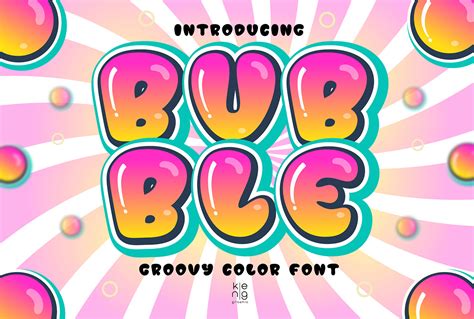
Psychedelic Bubble Font: Free Download Guide
Hey guys, looking to add some seriously groovy vibes to your next design project? Well, you’ve come to the right place! Today, we’re diving deep into the awesome world of psychedelic bubble fonts and, more importantly, how you can snag some free downloads to make your creations pop. These fonts are like a visual trip back to the swinging sixties and seventies, bringing that unmistakable retro flair with their rounded, flowing, and often mind-bending letterforms. Whether you’re designing a poster for a music festival, creating eye-catching social media graphics, or just want to give your personal projects a unique twist, a psychedelic bubble font is your secret weapon. Forget boring, straight-laced typography; it’s time to embrace the fun, the funky, and the fantastic! We’ll explore what makes these fonts so special, where to find the best free options, and what to look out for when downloading them. So, grab your tie-dye shirt, put on some good tunes, and let’s get ready to explore the vibrant universe of psychedelic bubble fonts!
Why Psychedelic Bubble Fonts Are Totally Rad
So, what’s the big deal with psychedelic bubble fonts anyway? Think about the era that birthed them – the 1960s and 70s. This was a time of artistic explosion, a rebellion against the norm, and a celebration of vibrant expression. Psychedelic art, music, and fashion were all about breaking boundaries, and typography was no exception. These fonts capture that spirit perfectly. Bubble letters , by their very nature, are soft, rounded, and inviting. When you infuse them with a psychedelic twist, they become something truly magical. They often feature thick, juicy strokes that look like they’ve been inflated with air, giving them a playful, almost cartoonish feel. But it’s not just about the roundness; psychedelic bubble fonts often incorporate elements like wavy lines, distorted shapes, and a sense of movement that makes the text feel alive. They’re incredibly versatile, too! While they scream retro, they can also be used in modern designs to create a nostalgic contrast or to simply inject a dose of pure fun. Imagine using a bold, bubbly font for a band’s album cover, a quirky invite to a party, or even a fun slogan on a t-shirt. The visual impact is immediate and unforgettable. They evoke feelings of joy, freedom, and a touch of playful rebellion. Unlike more rigid fonts, these have a flow and personality that draw the viewer in. They’re not just letters; they’re characters in your design, each with its own unique story to tell. The organic shapes and often asymmetrical designs contribute to their unique charm, making each word a miniature work of art. They represent a departure from the structured and the mundane, offering a gateway to a more expressive and visually engaging form of communication. In essence, psychedelic bubble fonts are a potent tool for anyone looking to make a statement and leave a lasting impression with their designs.
Tips for Using Psychedelic Bubble Fonts Effectively
Alright, you’ve got your psychedelic bubble fonts downloaded and installed, and now you’re probably wondering how to use them without going overboard. These fonts are powerful, guys, and like any powerful tool, they need to be used thoughtfully to get the best results. Free download doesn’t mean you can just slap them everywhere! The key to using psychedelic bubble fonts effectively is balance and context . They are inherently loud and attention-grabbing, so they often work best as display fonts – think headlines, titles, logos, or key call-to-action elements. Trying to write an entire paragraph in a super swirly, bubbly font might make it unreadable and give your audience a headache! Start by considering the overall mood and message of your design. Are you going for a fun, retro vibe? A quirky, modern feel? Or something completely out there? Psychedelic bubble fonts excel at conveying a sense of playfulness, nostalgia, and vibrant energy. Use them where you want that feeling to shine through. Don’t be afraid to pair them with simpler, more conventional fonts for body text. This contrast creates visual hierarchy and ensures that your design remains readable. For instance, a bold psychedelic bubble font for a main heading can be beautifully complemented by a clean sans-serif font for the accompanying text. Experiment with color! These fonts look incredible with bright, contrasting colors that enhance their groovy, psychedelic feel. Think gradients, neon hues, or even classic rainbow palettes. However, make sure your color choices don’t further compromise legibility. Sometimes, a simpler color scheme can allow the unique shape of the font to take center stage. Another great tip is to use them sparingly. Sometimes, less is more. Even a single word or a short phrase in a psychedelic bubble font can have a huge impact. Consider using them for logos, event titles, or signature elements in your branding. Finally, always preview your text before committing. See how the letters connect (or don’t connect!), how they look at different sizes, and how they interact with other elements in your design. This little bit of extra effort will ensure your psychedelic bubble font choice elevates your project from good to absolutely phenomenal. Remember, the goal is to be visually engaging, not visually overwhelming!
Common Pitfalls to Avoid
While psychedelic bubble fonts are super fun and offer a ton of creative potential, there are definitely a few common pitfalls to watch out for when you’re using them, especially when you’ve just grabbed them via a free download . One of the biggest issues is legibility . Because these fonts are often characterized by extreme curves, loops, and sometimes distorted letterforms, they can become really hard to read, especially at smaller sizes or when used for extended blocks of text. Guys , seriously, nobody wants to squint to figure out what your message is! Always test your chosen font at the size it will be used in your final design. If it looks messy or confusing, it’s probably not the right font for that specific purpose. Another trap is overuse . It’s tempting to go wild with such a distinctive font, but using it for every element in your design can quickly lead to visual chaos. Remember the principle of contrast: pair your bold psychedelic font with simpler, more neutral fonts to create visual interest and hierarchy. Think of it like seasoning food – a little bit adds flavor, but too much can ruin the dish! Be mindful of the context and audience . A playful, psychedelic font might be perfect for a vintage-themed party invitation or a fun sticker design, but it might be completely inappropriate for a professional business presentation or a serious news article. Ensure the font aligns with the overall tone and purpose of your project. Also, be aware of licensing issues . While you might have found a font through a